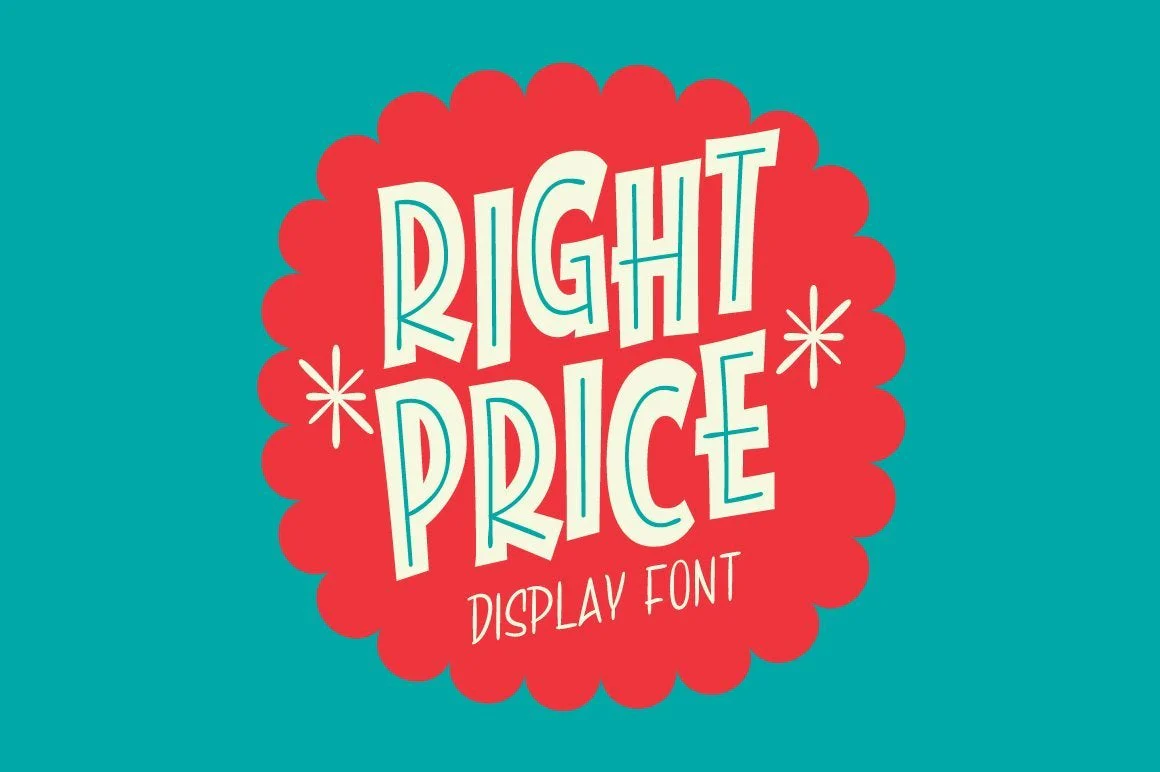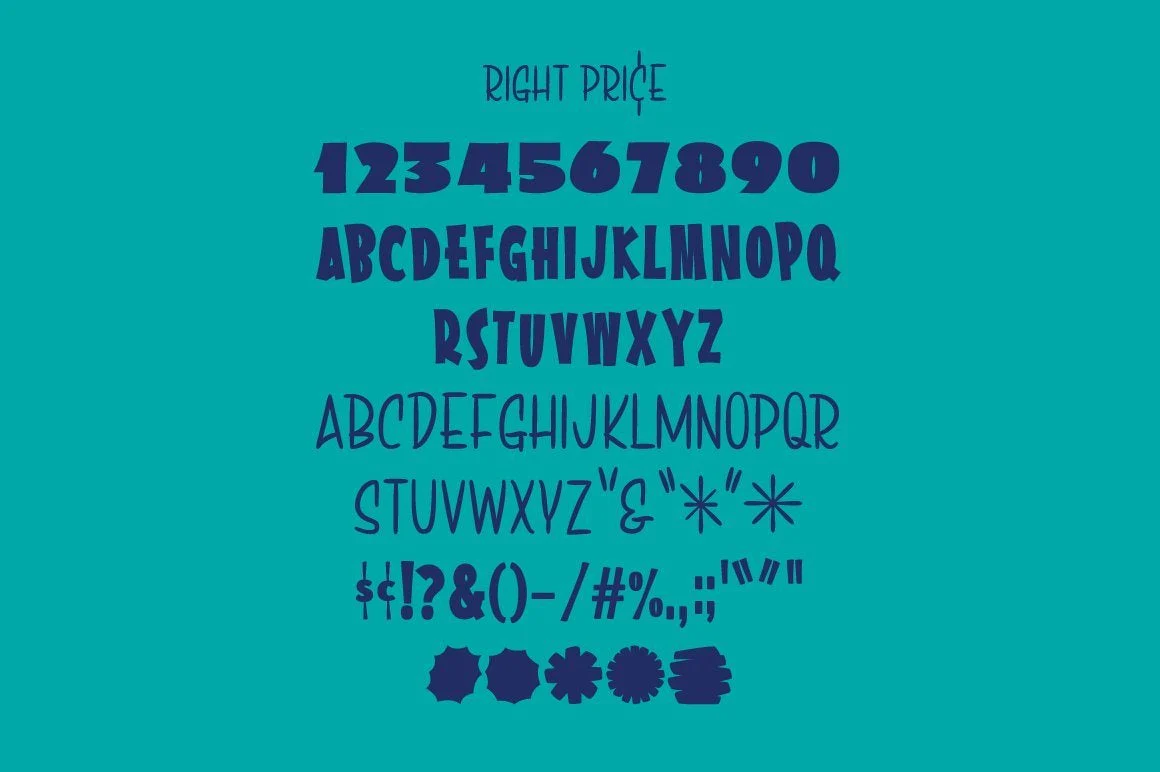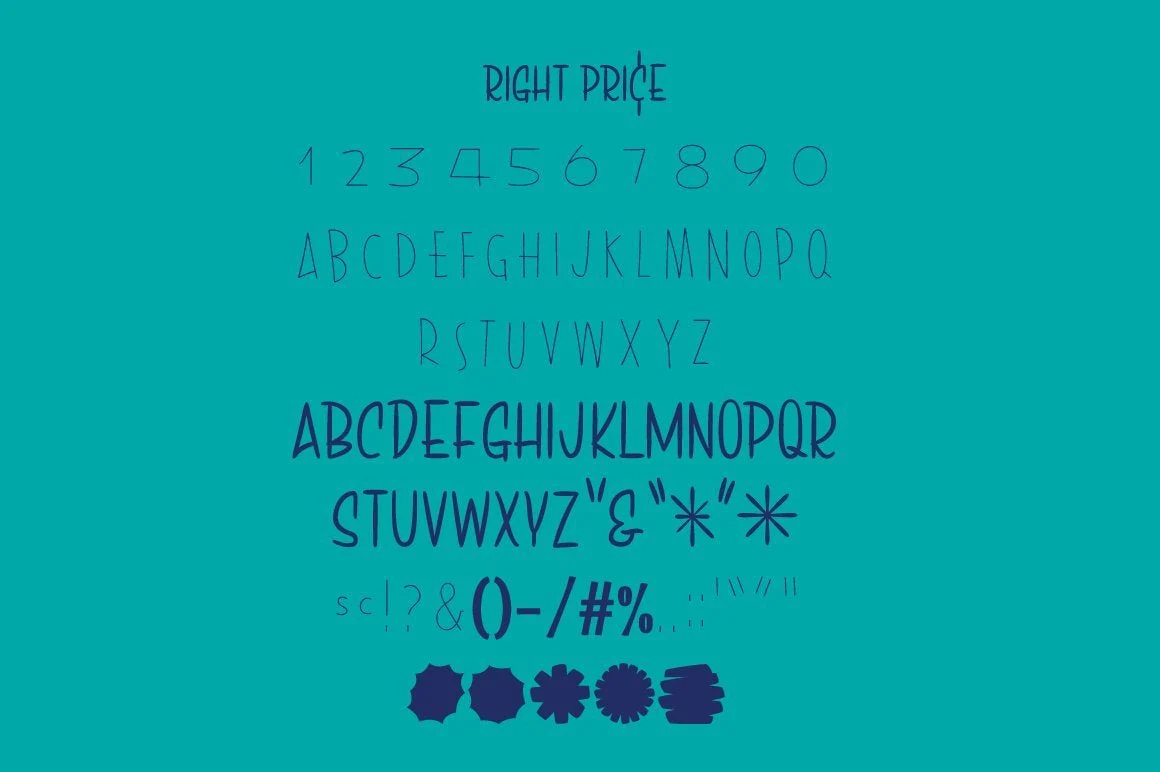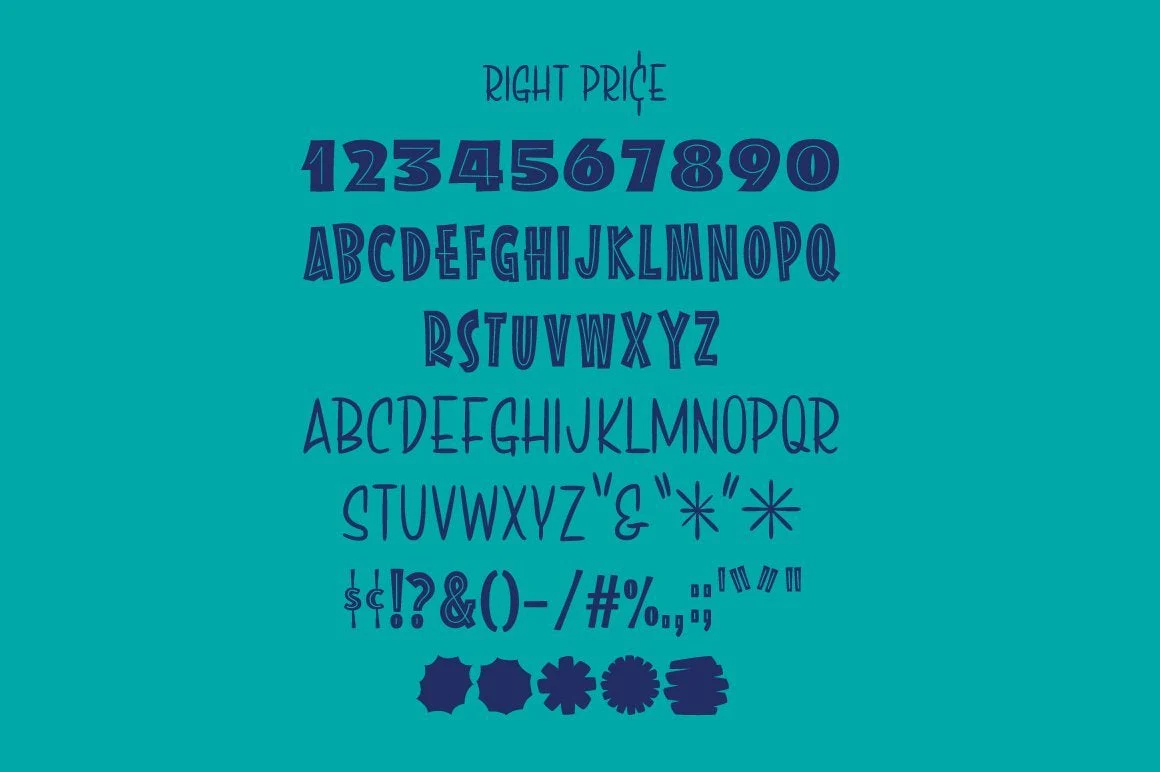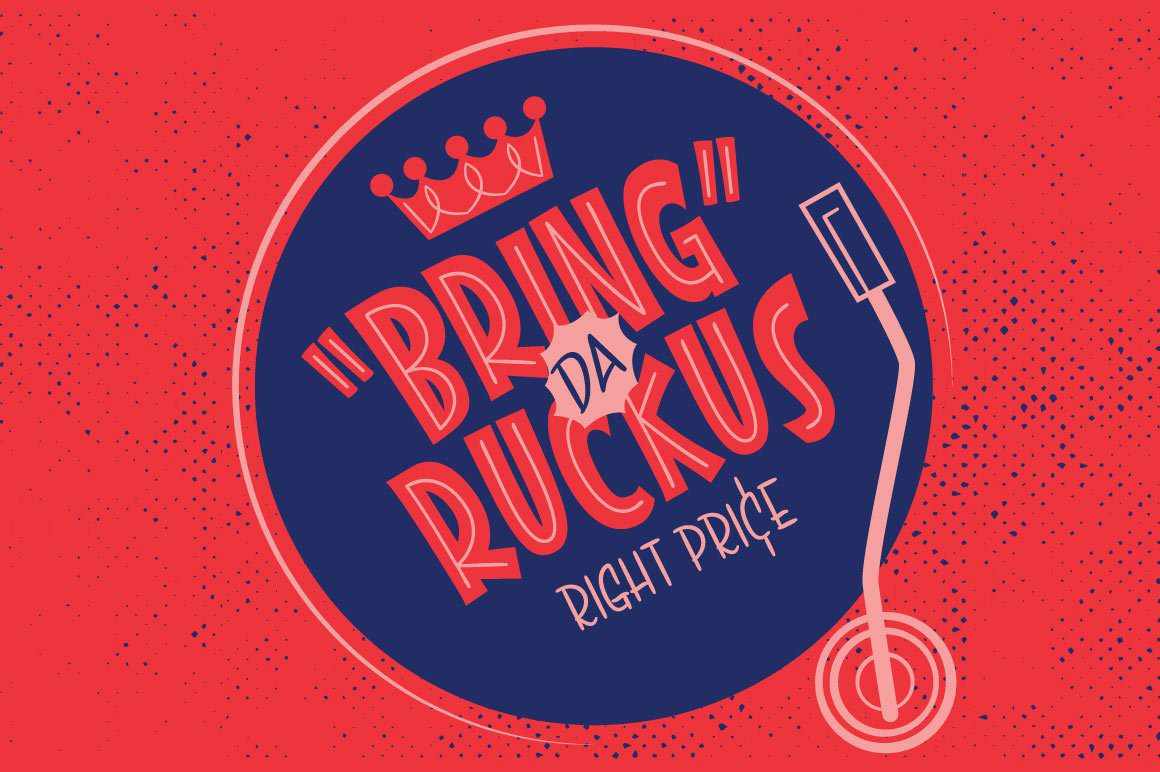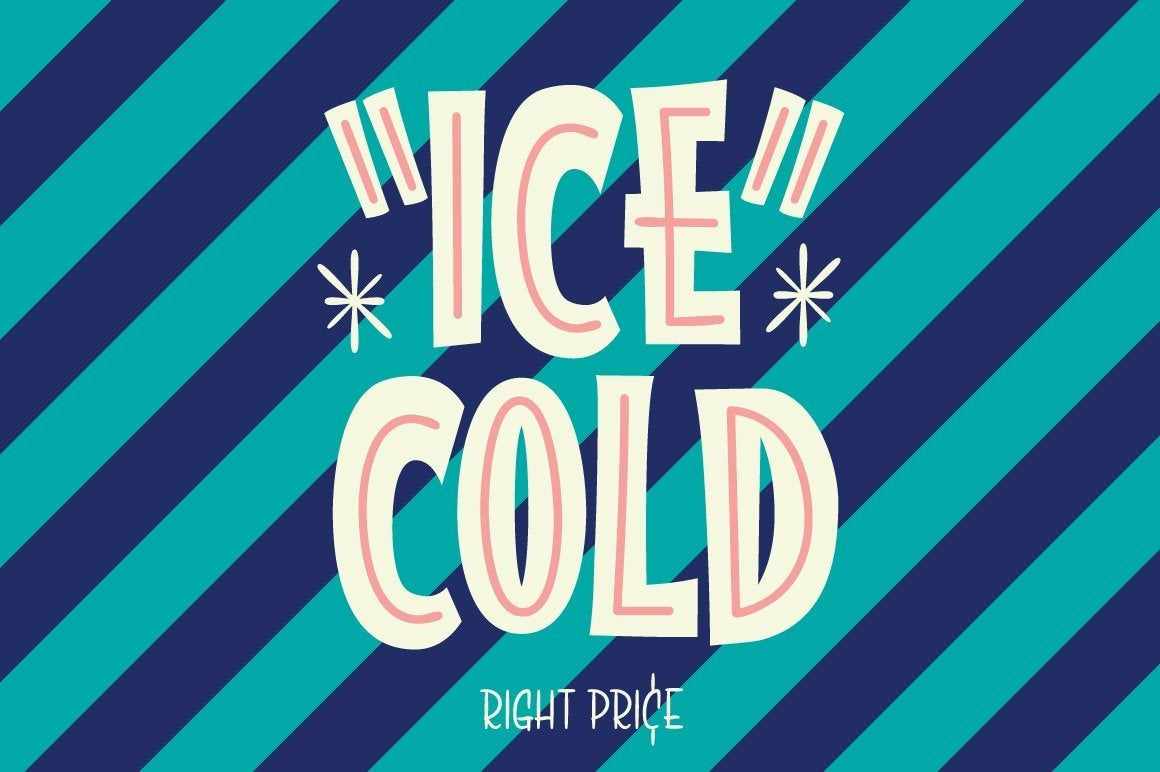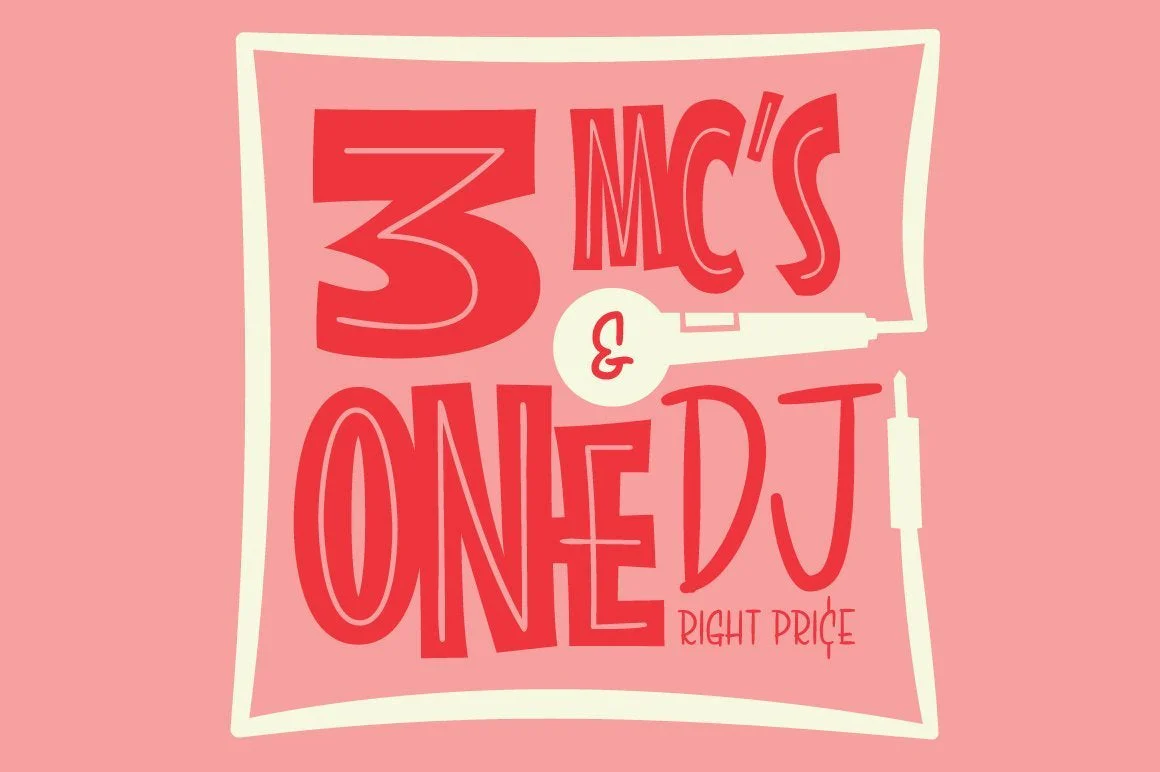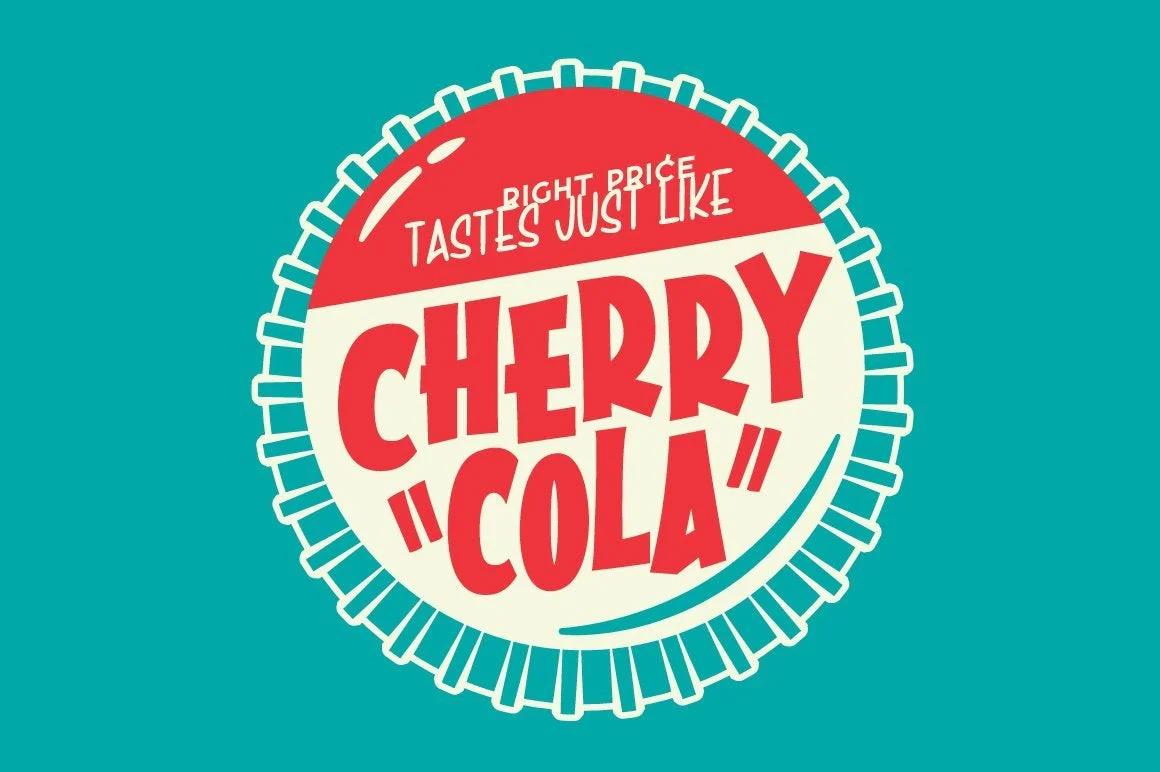
Right Price Font
- A nod to old concert posters and hand painted display cards
- Includes 3 Fonts: Regular, Bold, & Inline
RIGHT PRICE is a display font created by Australian Illustrator Travis Price. A nod to old concert posters and hand painted display cards RIGHT PRICE is the perfect choice for adding some Ol Skool Flavour to your designs.
RIGHT PRICE comes in three styles: Regular, Inline & Bold. The casual script is set to the lowercase characters in each style. Also included in the package is the illustrator file of the sample images.